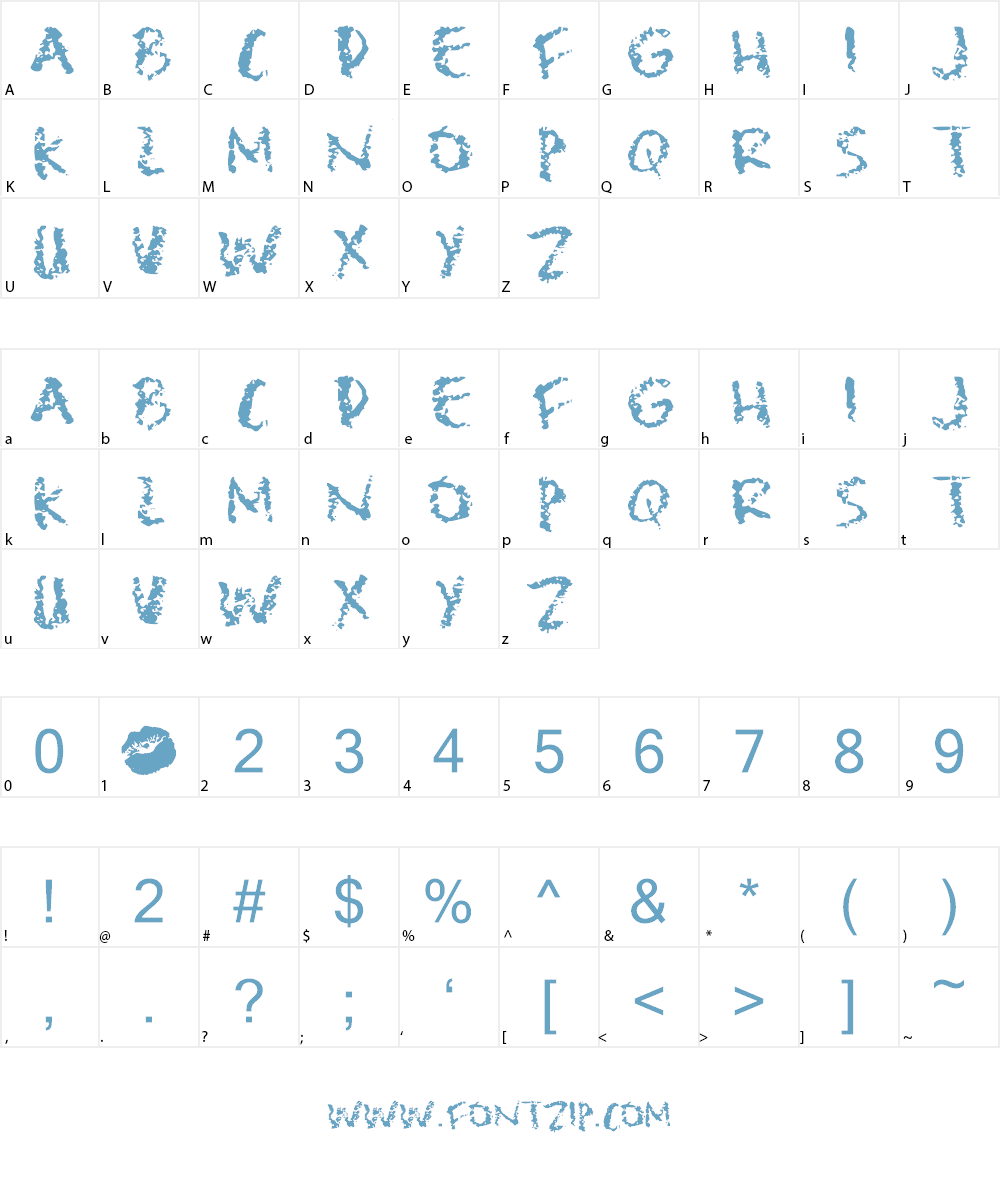
Stephen Deken, font designer Isabelle Trolio's partner at the (now sadly defunct) Typearound font site wrote this in August 1999 to introduce this font:
"Up for grabs and shameless downloading this week is Lipstick Traces. As this is Isabelle's handiwork, and she didn't give me a blurb, I can only speculate as to where it came from...
See, I think that what happened was that Isabelle woke up one morning and couldn't find her lipstick. She stumbled around for a while and finally made it out to the kitchen, where she found the following ransom note, w ritten all in uppercase:
"WE HAVE YOUR ZEBRA. OF COURSE, IF YOU WANT TO SEE IT DO WHATEVER IT IS THAT ZEBRAS DO, BRING THE XYLOPHONE AND A MOOSE AND MEET US AT JACK'S BARBEQUE."
Being a true font geek, Isabelle completely ignored the actual content of the note and immediately made it into a font. She even got a teensy bit carried away and used the remaining lipstick to make a kissprint.
(Okay okay, so that's not the way it went. That'll teach Isabelle to not write her own blurb, though...)"